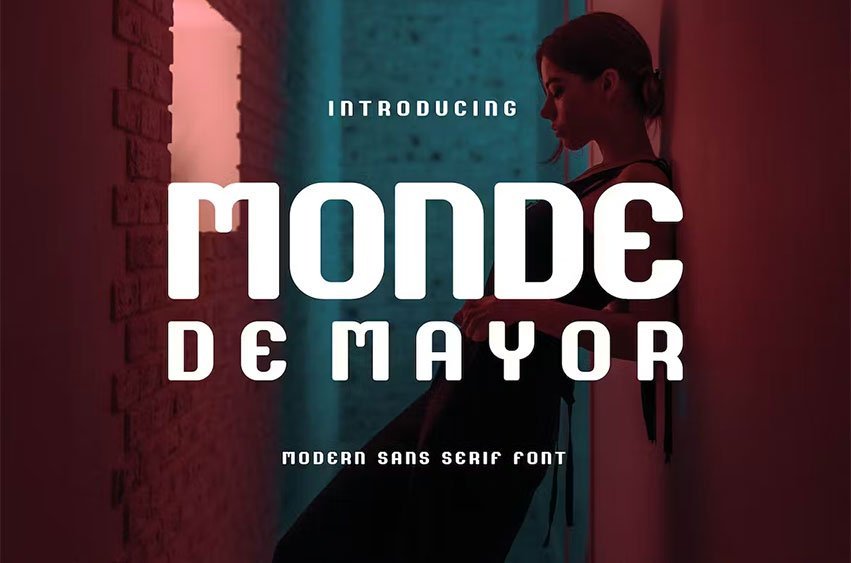
Monde De Mayor Font Typeface inspired by the famous minimalist logo perfect for the purposes of designing templates, brochures, videos, advertising branding, logos, invitation, layout design, elegant crafting, beauty design and other.